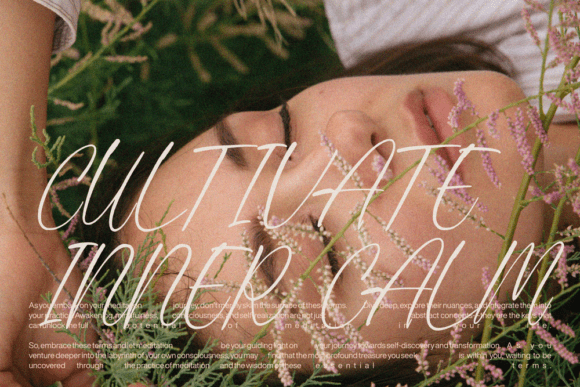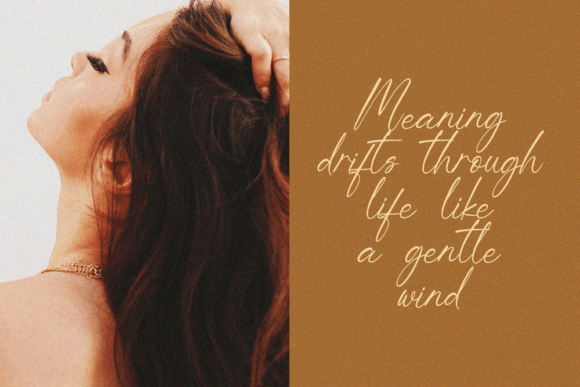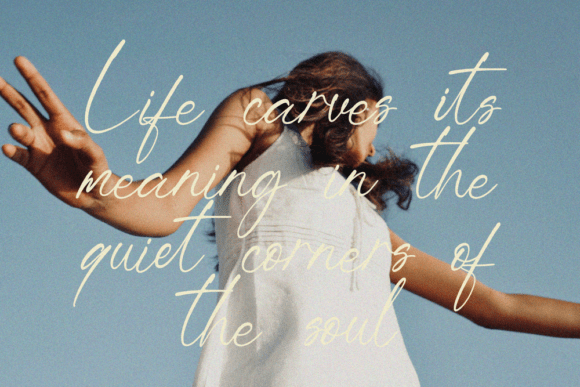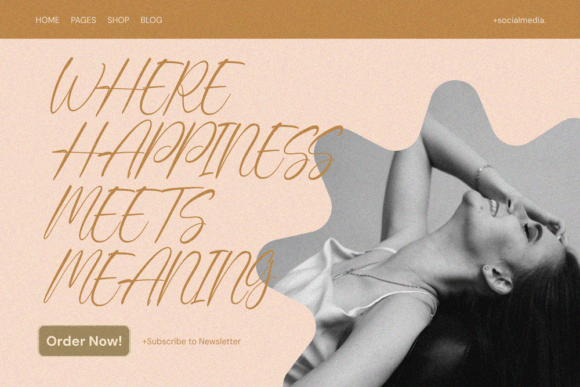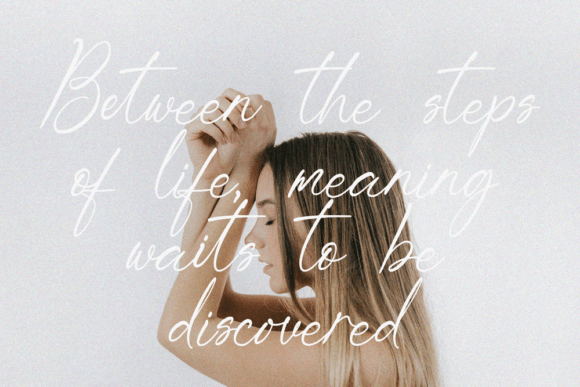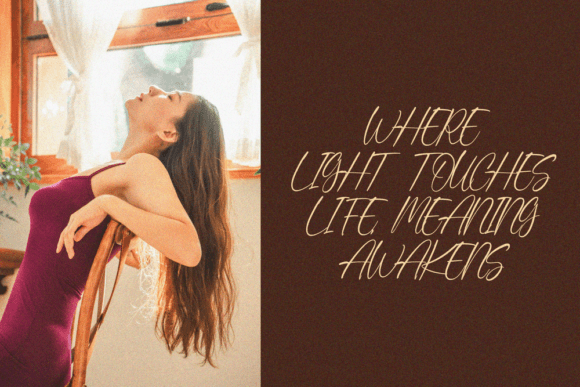
Aurest Emgiyen Font: Elevate Your Brand with Luxurious Elegance
Immerse yourself in the opulent allure of Aurest Emgiyen, a masterfully crafted modern luxury script font that embodies the perfect blend of sleek elegance and supreme design intricacy. This stunning font radiates a delicate yet bold allure, tailored perfectly for upscale, high-end visual identity. Whether you’re a fashion label, luxury boutique, or beauty and skincare brand, Aurest Emgiyen is the ideal choice for elevating your brand to new heights of sophistication and glamour.
The Essence of Aurest Emgiyen
Aurest Emgiyen is characterized by its light, flowing, and high-contrast strokes, which give it a unique and distinctive appearance. The font features stunning ligatures and a graceful multilingual character set, allowing for sophisticated and versatile design applications. With its refined movement and subtle drama, this typeface ensures your message is delivered with undeniable class and exclusivity.
Design Applications
Aurest Emgiyen is an indispensable selection for various design applications, including:
- High-end fashion branding: Create a luxurious and sophisticated brand identity with Aurest Emgiyen’s elegant and refined strokes.
- Wedding invitations: Add a touch of glamour and romance to your wedding invitations with this beautiful script font.
- Chic cosmetic packaging: Elevate your beauty brand with Aurest Emgiyen’s luxurious and high-end feel.
- Personal logos: Create a unique and sophisticated logo that reflects your brand’s personality and style.
- Magazine mastheads: Make a statement with Aurest Emgiyen’s bold and elegant font, perfect for magazine mastheads and titles.
Aurest Emgiyen boasts several key features that make it an exceptional choice for designers and crafters:
- Multilingual character set: Create designs for various languages and cultures with Aurest Emgiyen’s extensive character set.
- Ligatures: Add a touch of sophistication to your designs with Aurest Emgiyen’s stunning ligatures.
- High-contrast strokes: Experience the perfect balance of elegance and drama with Aurest Emgiyen’s high-contrast strokes.
Why Choose Aurest Emgiyen?
In a world where visual identity is crucial, Aurest Emgiyen stands out as a beacon of luxury and sophistication. With its masterful blend of elegance and intricacy, this font is poised to elevate your brand to new heights. By choosing Aurest Emgiyen, you’ll:
- Stand out in a crowded market: Create a unique and memorable brand identity that sets you apart from the competition.
- Convey exclusivity and high-end quality: Radiate luxury and sophistication with Aurest Emgiyen’s refined and elegant strokes.
- Experience versatility: Apply Aurest Emgiyen to various design applications, from fashion branding to wedding invitations.
Aurest Emgiyen is more than just a font – it’s an experience. Immerse yourself in the world of sophisticated glamour and luxury, and elevate your brand to new heights of elegance and refinement. With its stunning ligatures, multilingual character set, and high-contrast strokes, Aurest Emgiyen is the perfect choice for designers and crafters seeking to create high-end visual identities. Indulge in the opulent allure of Aurest Emgiyen and discover a world of limitless design possibilities.